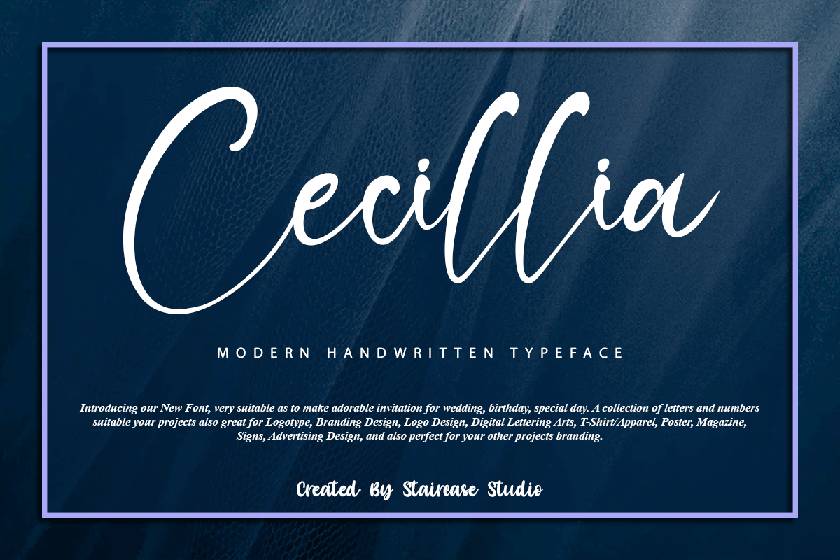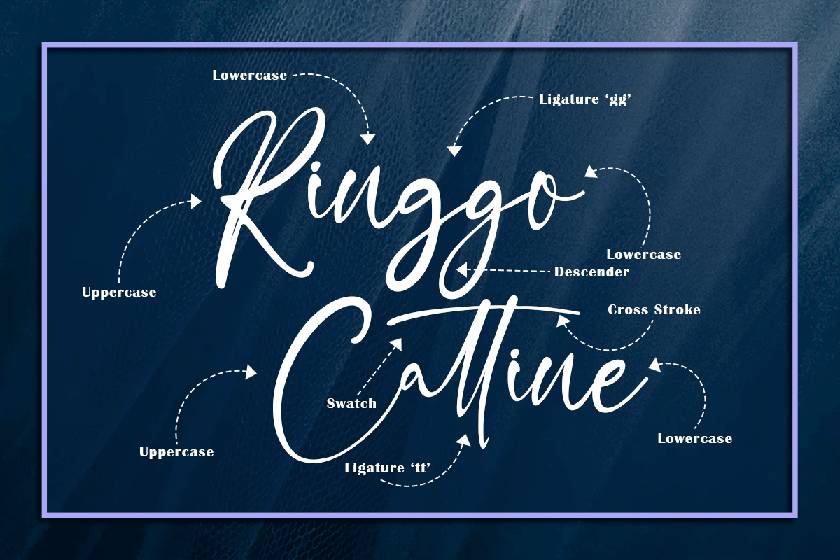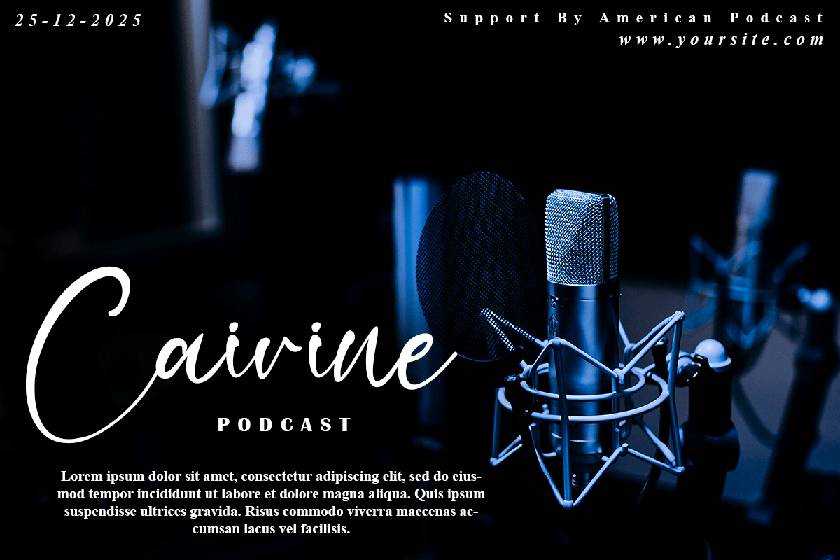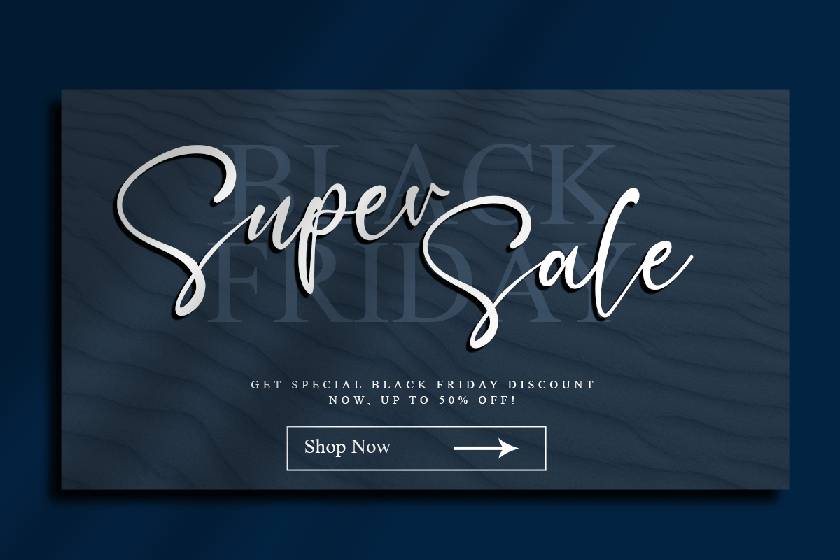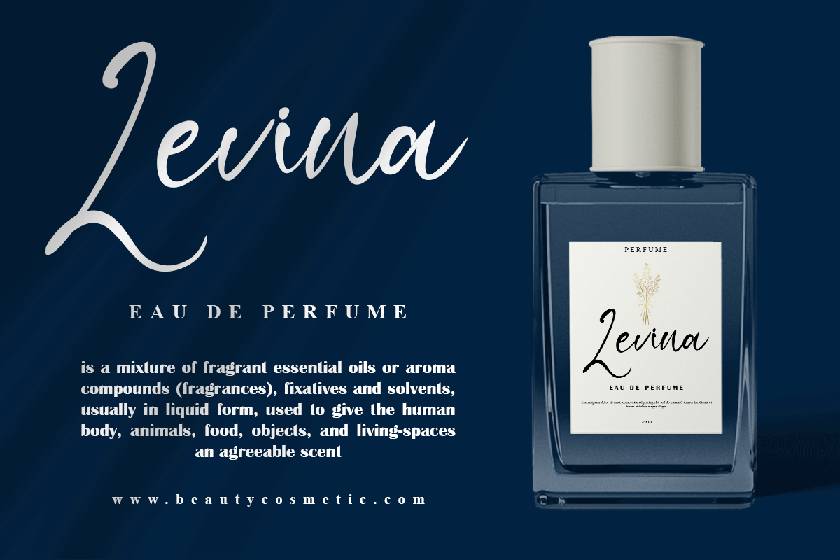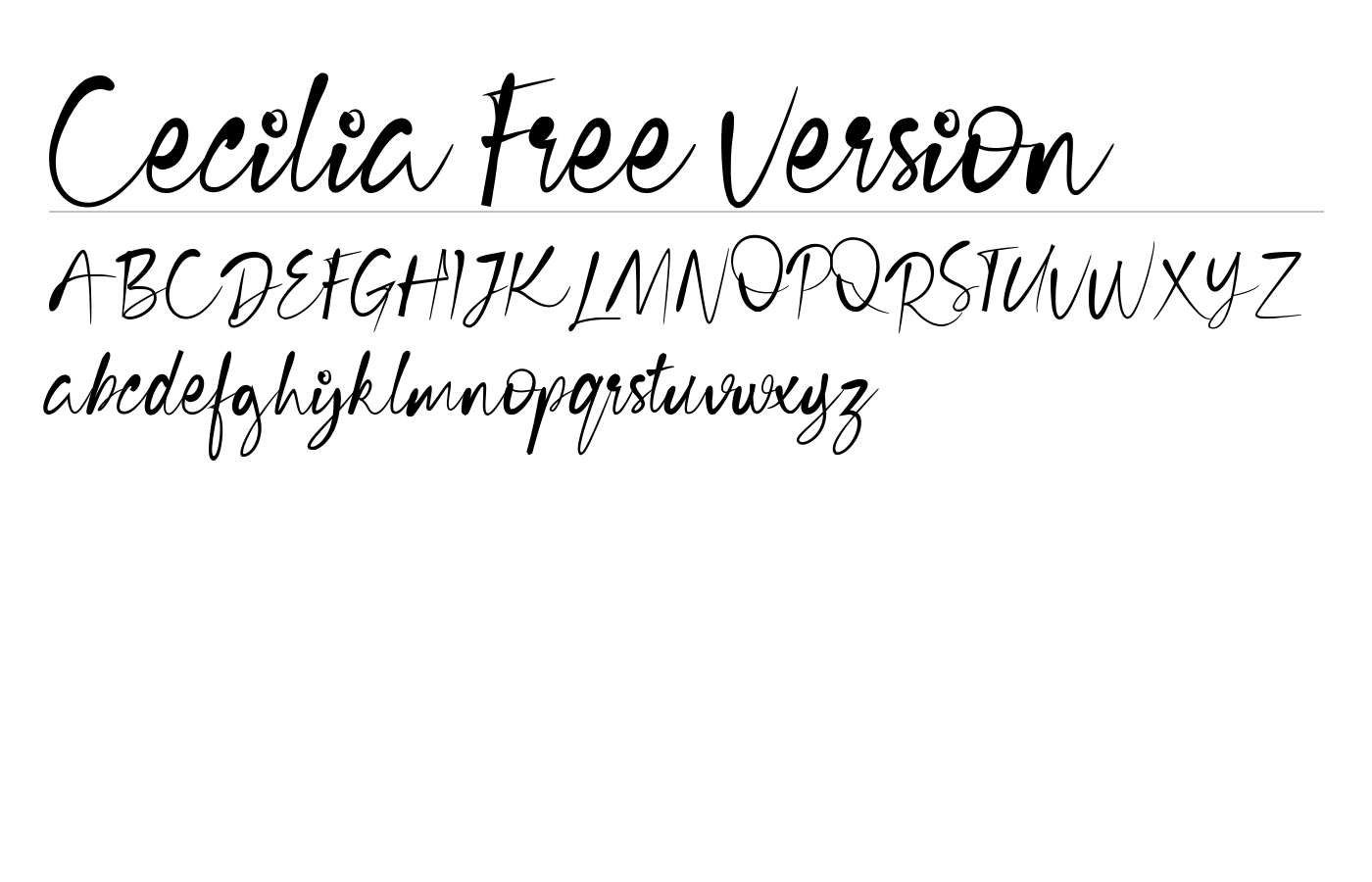
Cecilia is a playful and elegant handwritten script font characterized by its fluid strokes and varying line thickness that create a lively yet refined feel. With its casual yet stylish letterforms, it suits creative projects, personal branding, and invitations, adding a warm and personal touch. Its airy spacing and dynamic shapes make it ideal for headlines and decorative use where a friendly and artistic vibe is desired.
Cecillia Font
About Cecillia Font